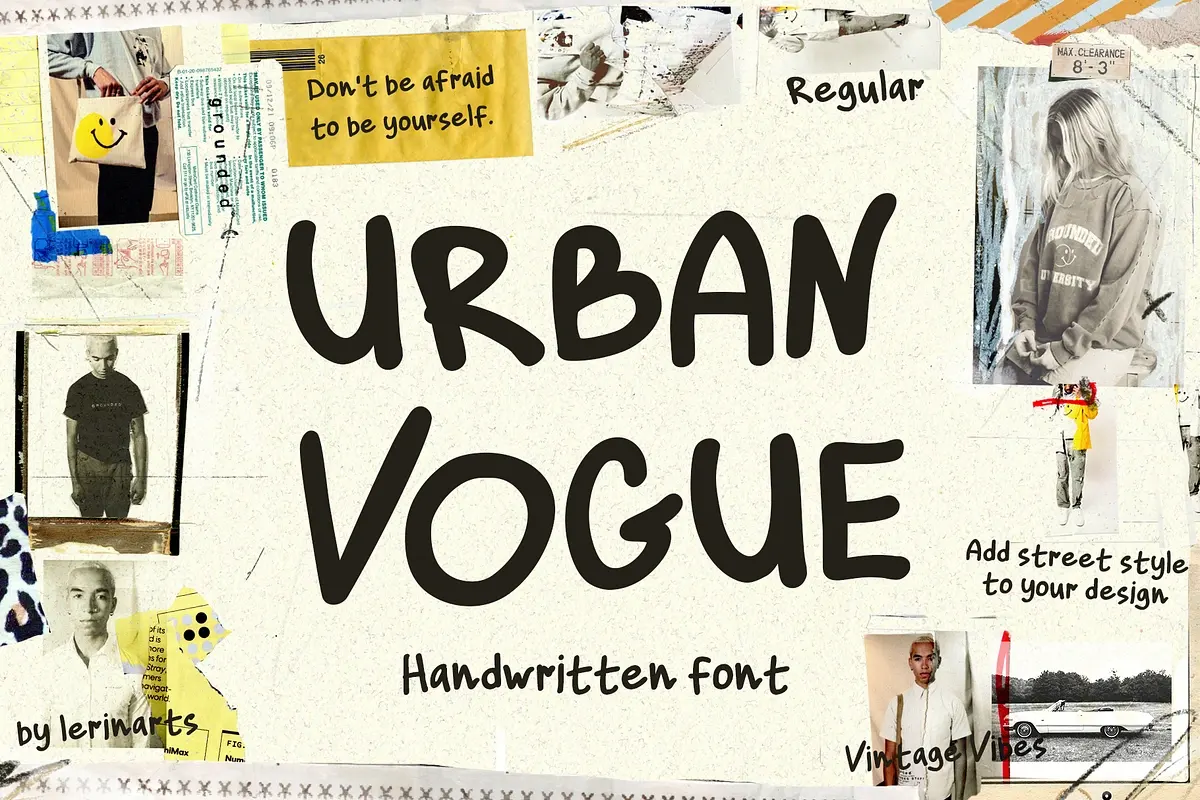
URBAN VOGUE: Handwritten font Free Download
URBAN VOGUE: Handwritten Font Free Download
Please note, you must purchase this font for commercial use. However, you can easily download URBAN VOGUE: Handwritten Font Free Download for personal use and testing purposes. URBAN VOGUE: Handwritten Font is a stylish and trendy handwritten typeface with a modern, fashionable flair. Perfect for branding, social media graphics, invitations, and personal projects, this font combines the charm of handwritten strokes with a sophisticated, urban aesthetic. Whether you're creating a chic logo, a personalized invitation, or a social media post, URBAN VOGUE: Handwritten Font Free Download adds a touch of elegance and individuality to your designs. Download URBAN VOGUE: Handwritten Font Free Download today and explore its potential before opting for a commercial license.